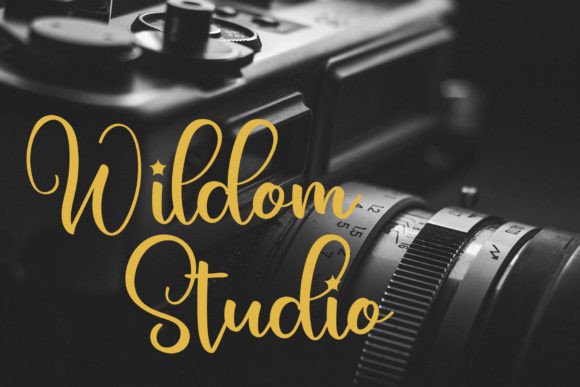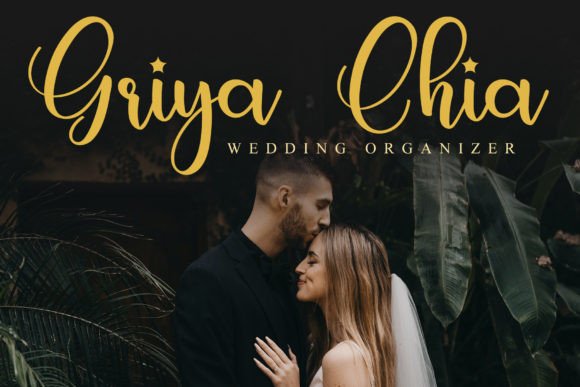
About Stacked Font
Stacked is a sweet and cursive handwritten font. This gentle font will look gorgeous on a variety of design ideas. It will add a joyful and romantic touch to each of your projects! Perfectly fit for branding, logos, wedding things, greeting cards, fashion, lookbook, marketing promotion, or anything you want to look fancy and elegant but still casual.